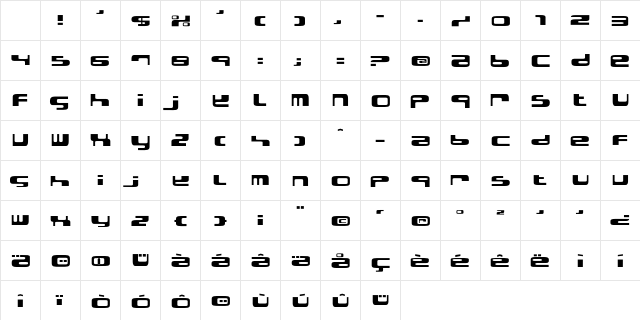
Complete BDElectrobazar Regular glyph index. Displaying only characters natively supported by BDElectrobazar Regular font.
BDElectrobazar is a composed and adaptable typeface that performs quietly and consistently across a wide range of design contexts.